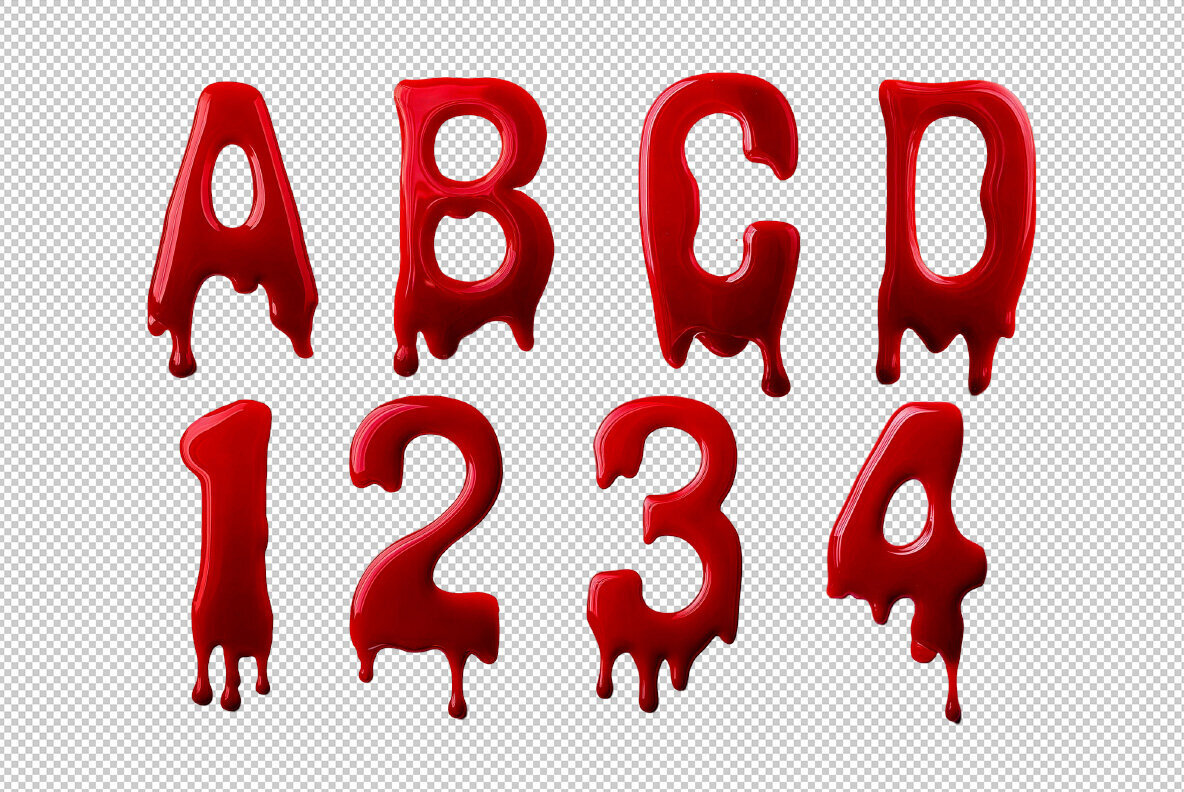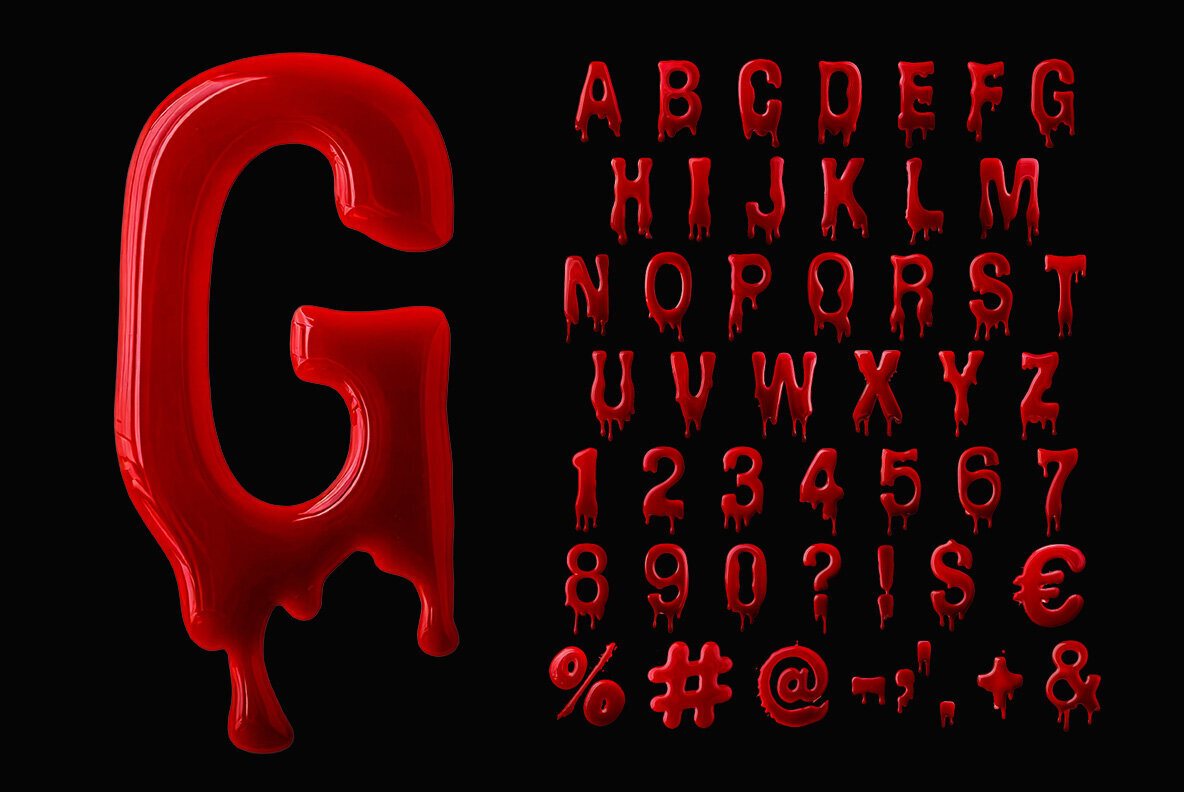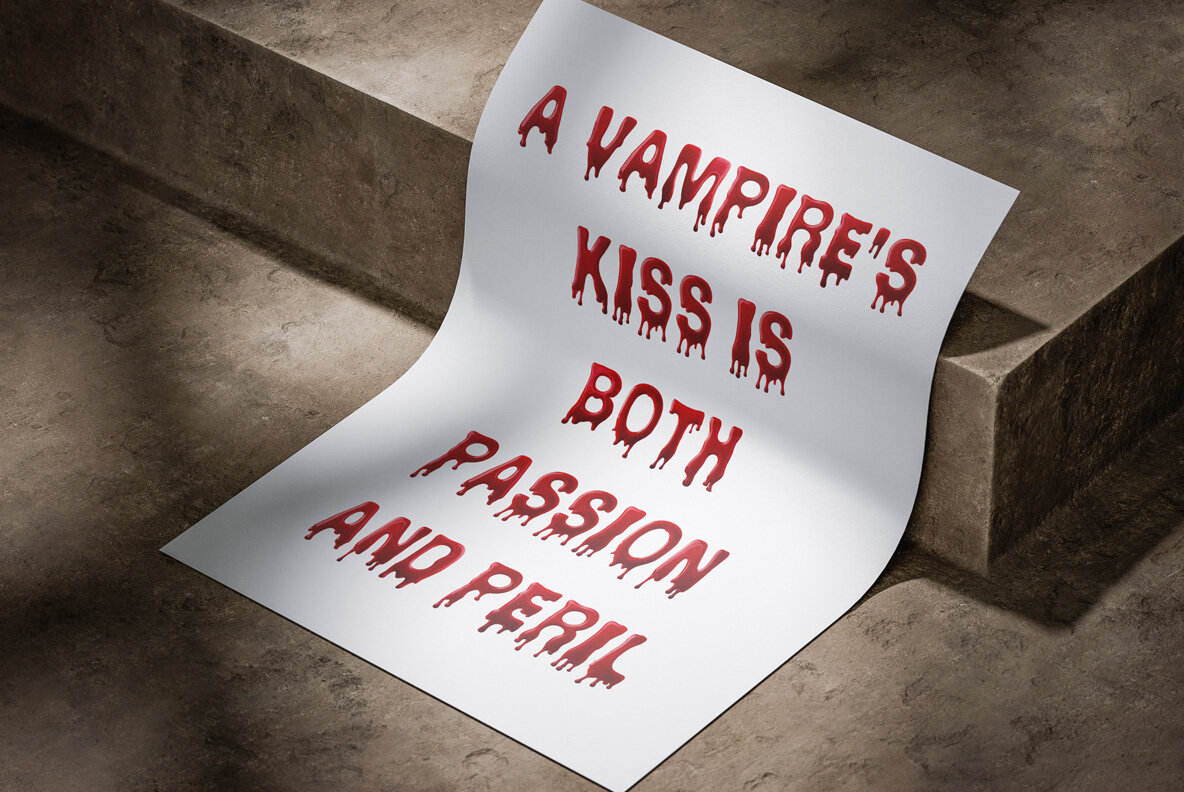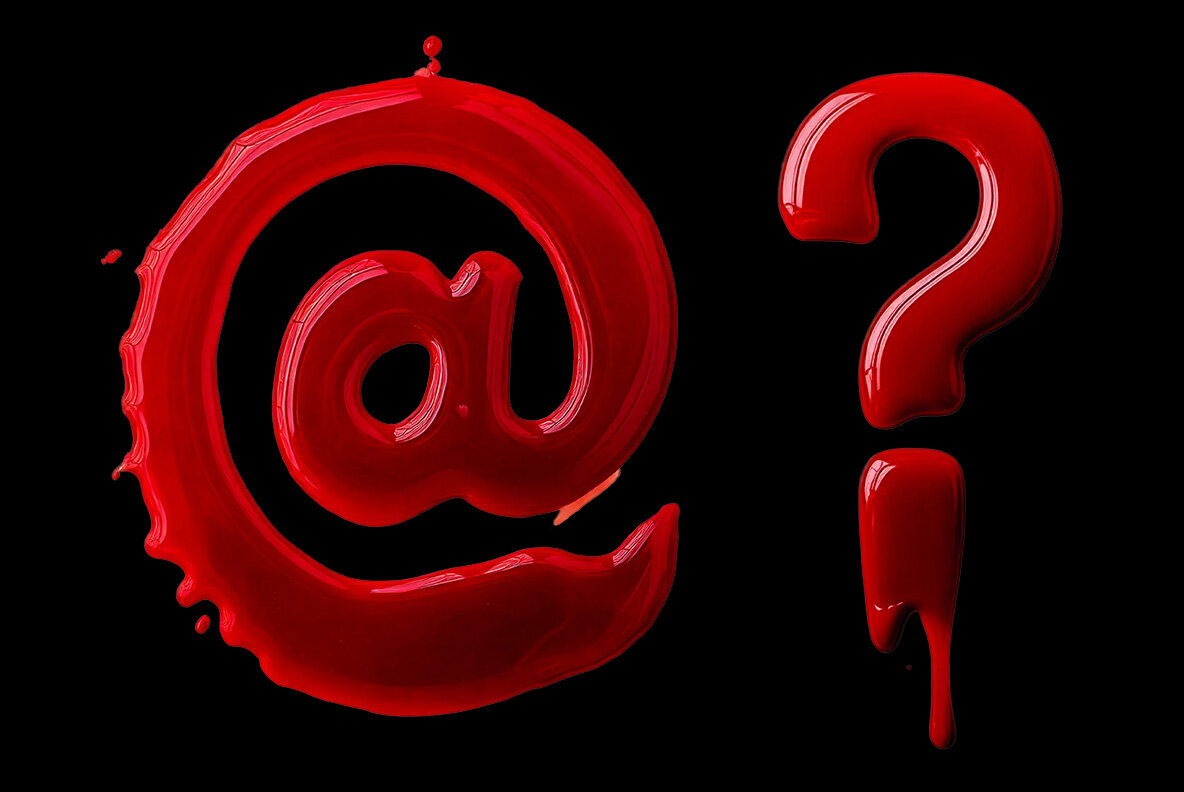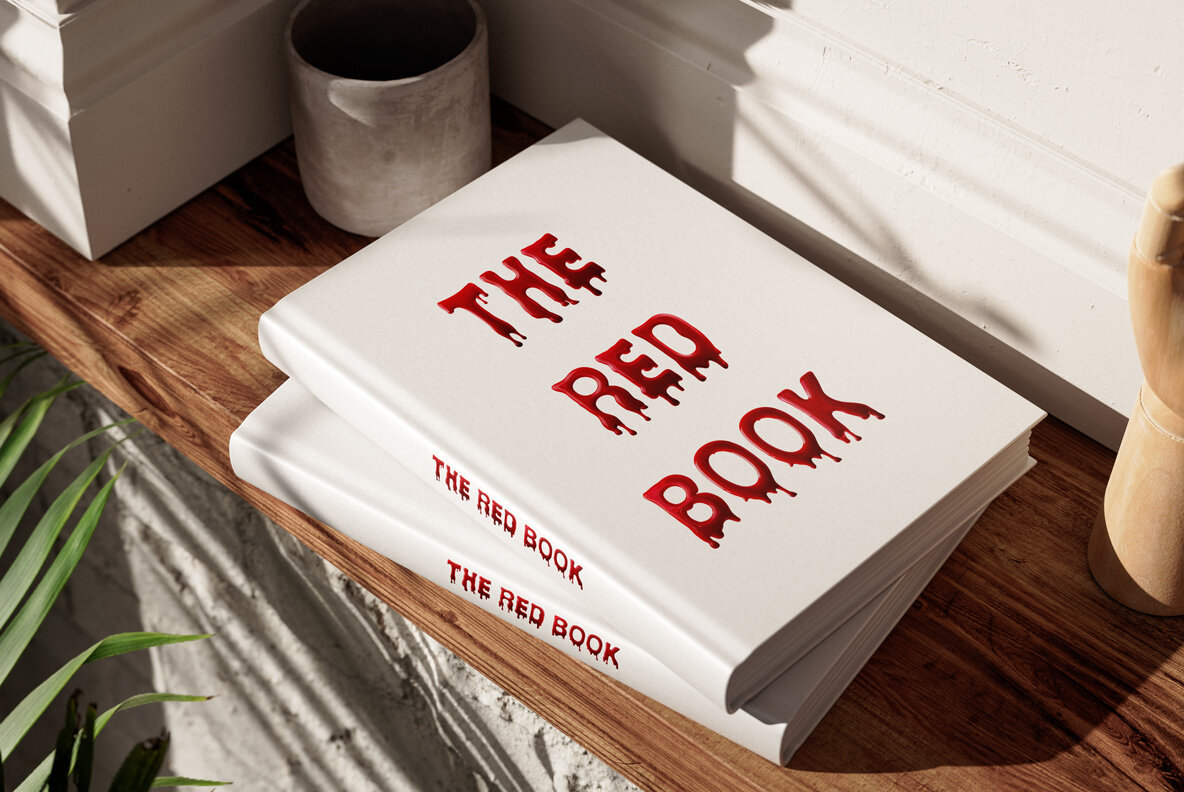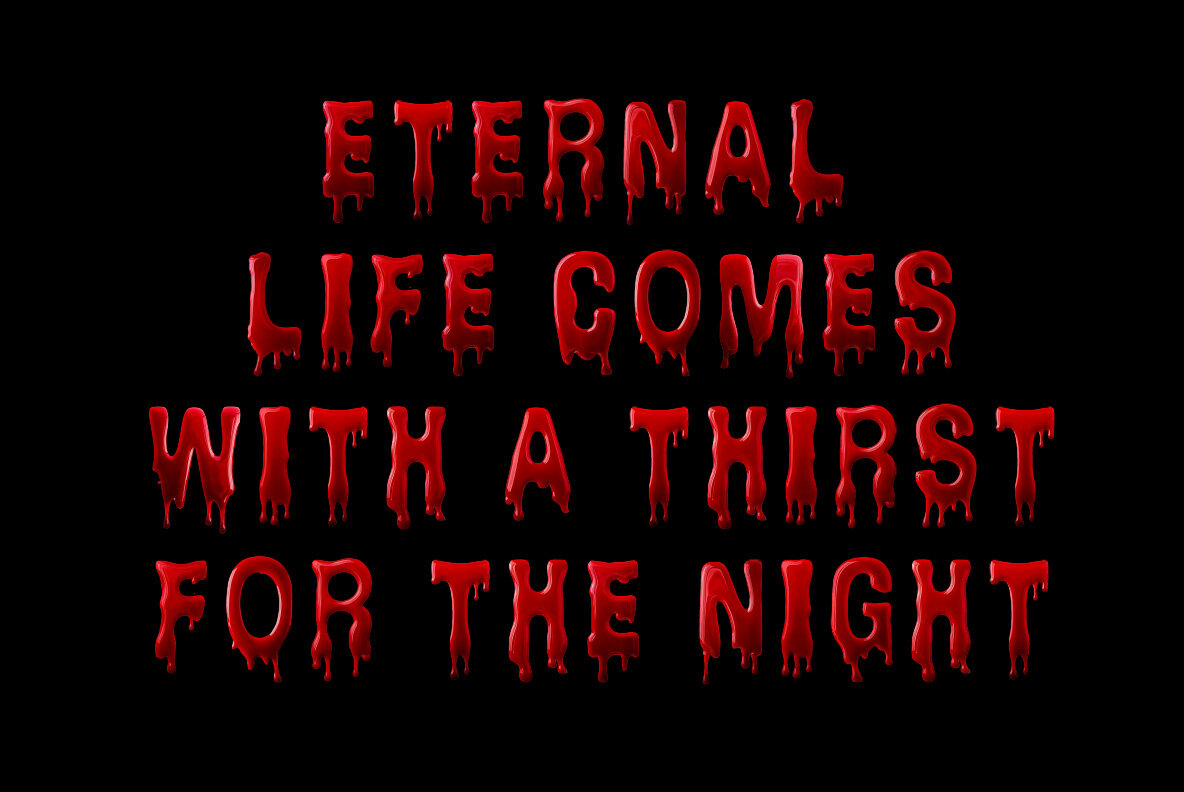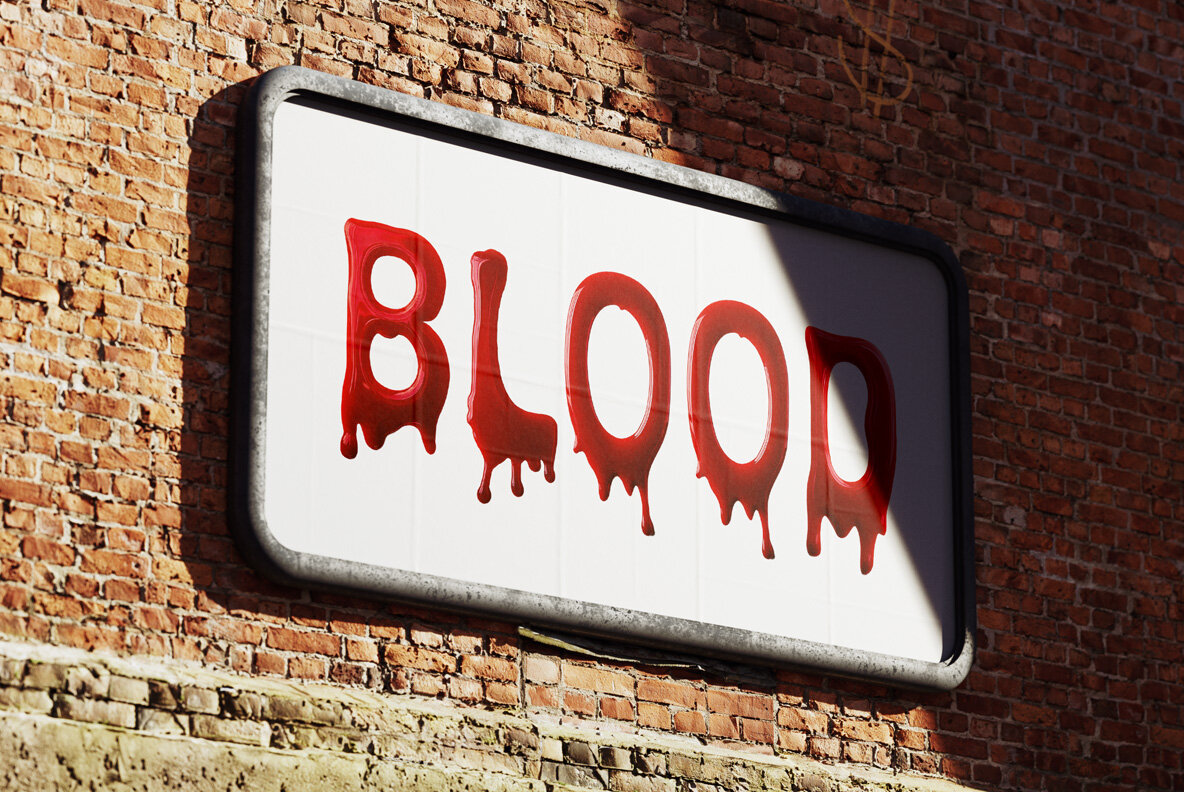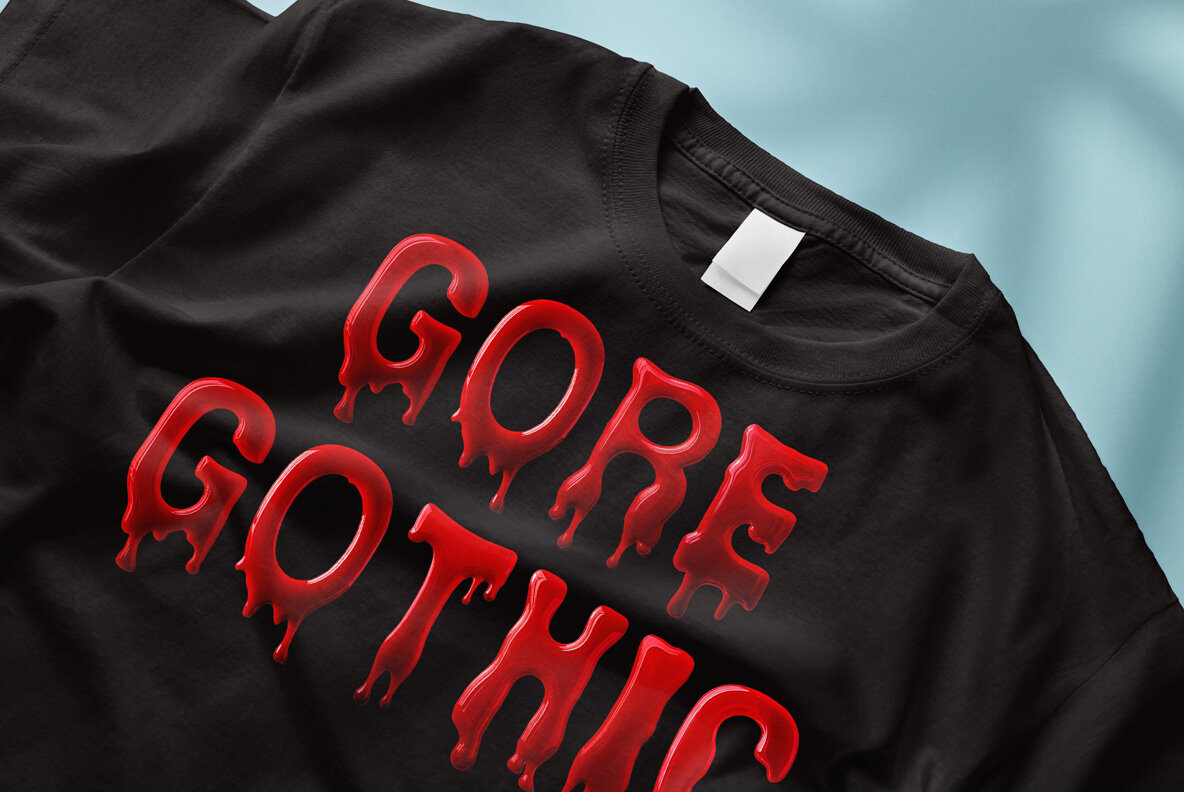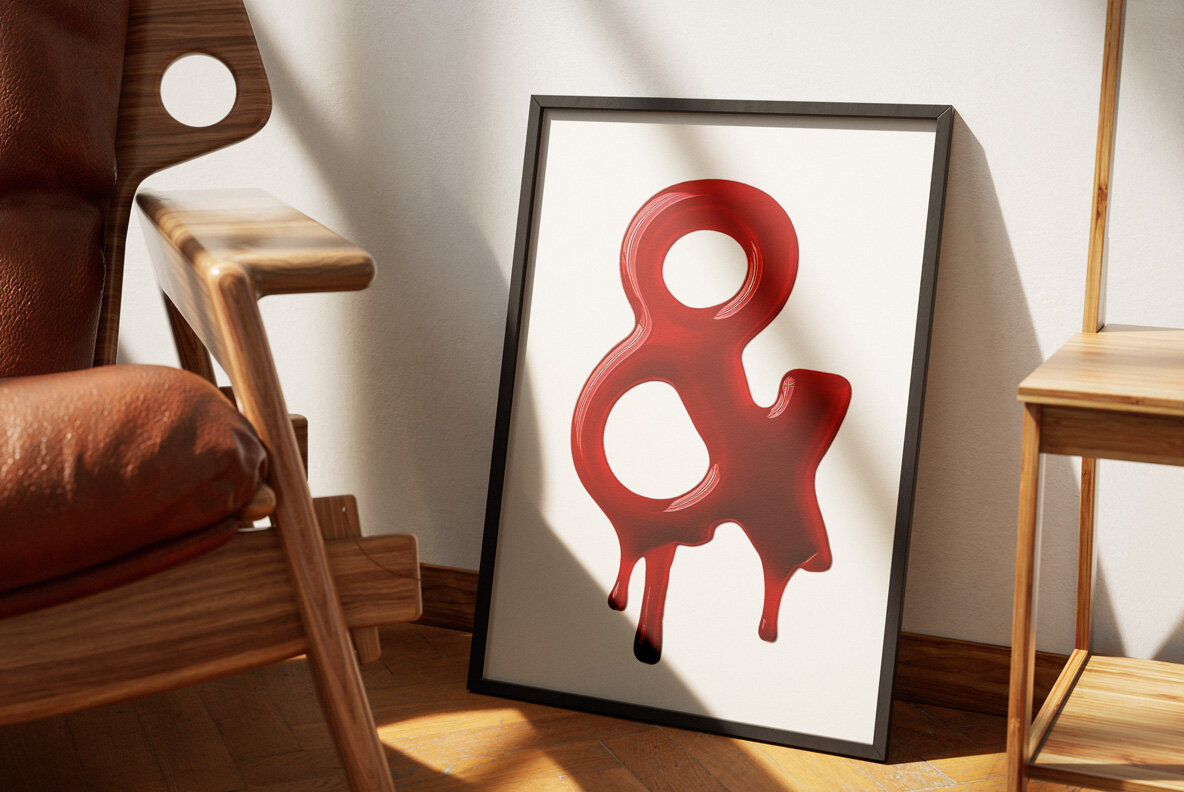
Vampire SVG is a spine-chilling typeface where each character seems to drip with blood, making it a perfect choice for Halloween designs or any horror-themed projects. With its bold, gothic style, this font adds an eerie atmosphere to posters, invitations, or any creative work requiring a supernatural touch. Whether you're crafting for haunted events or exploring dark aesthetics, Vampire Font's gory style infuses your designs with a distinctive, macabre flair.